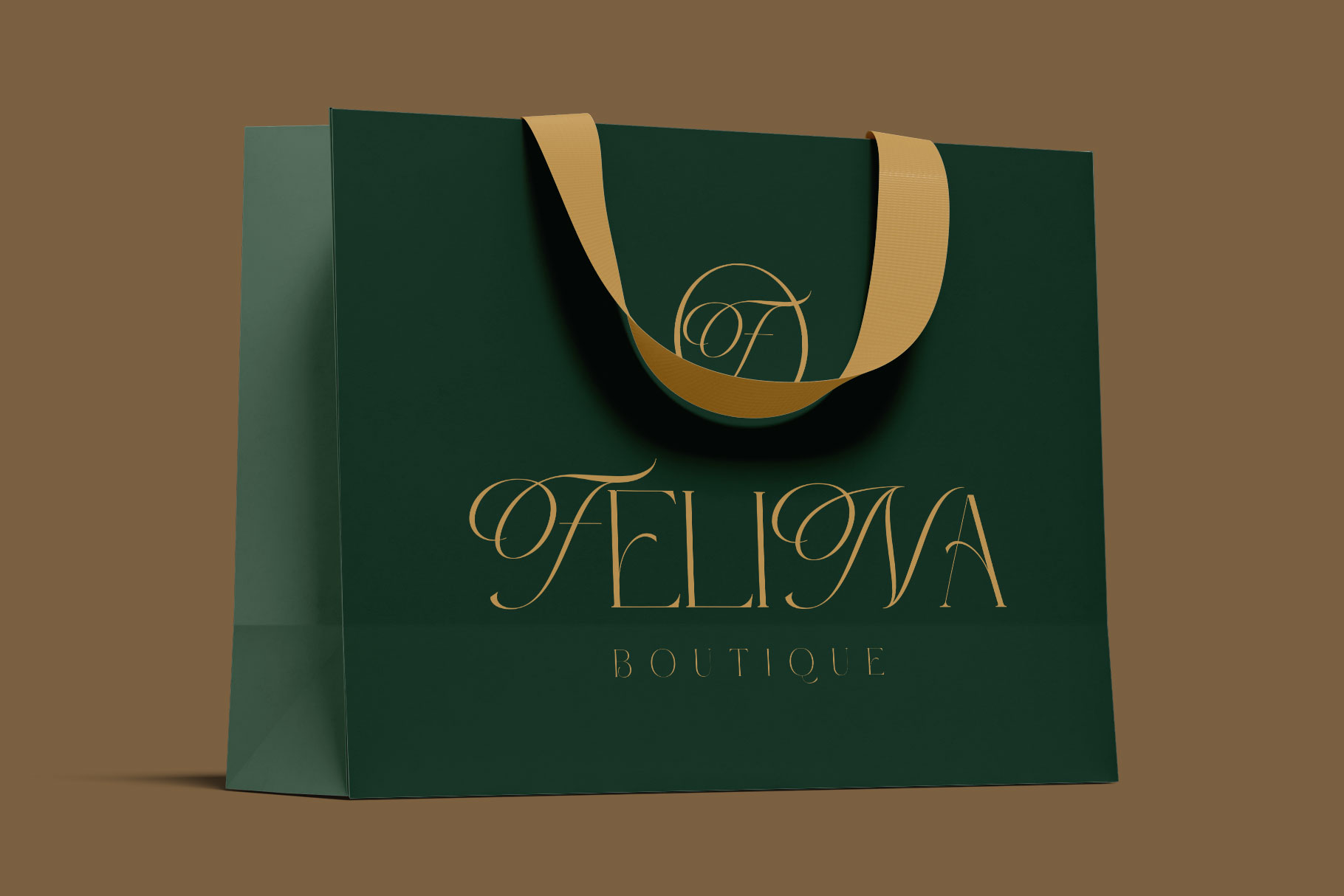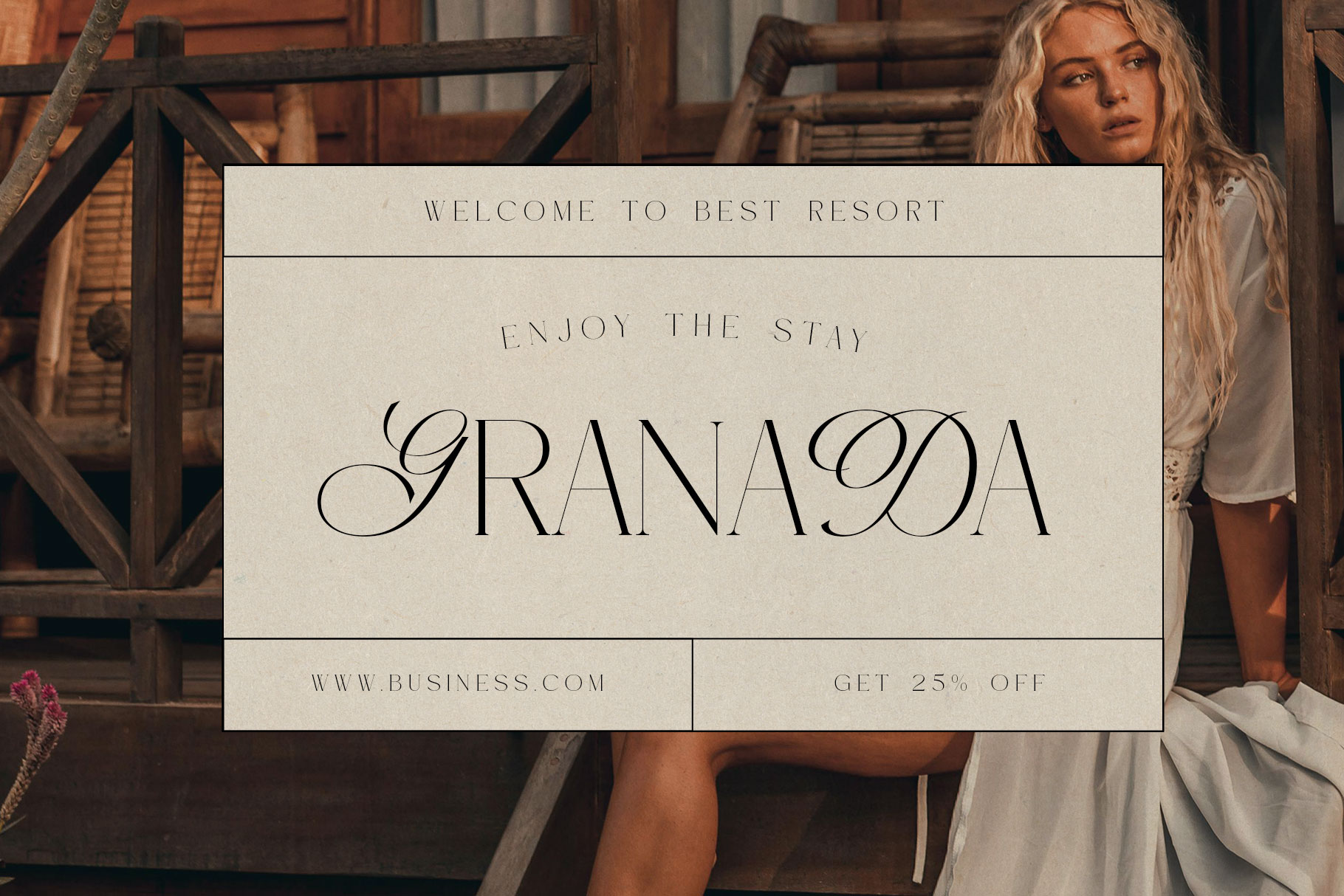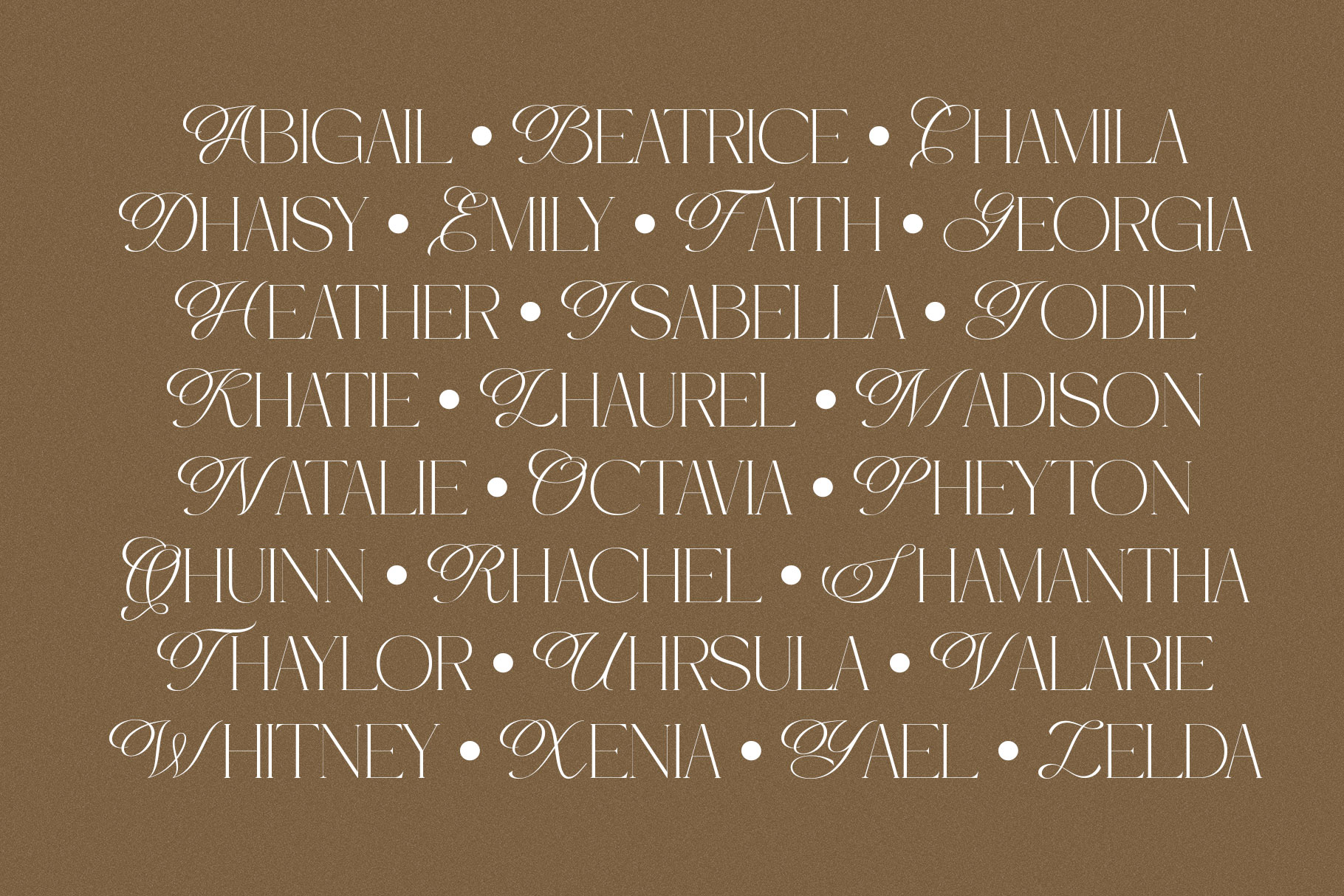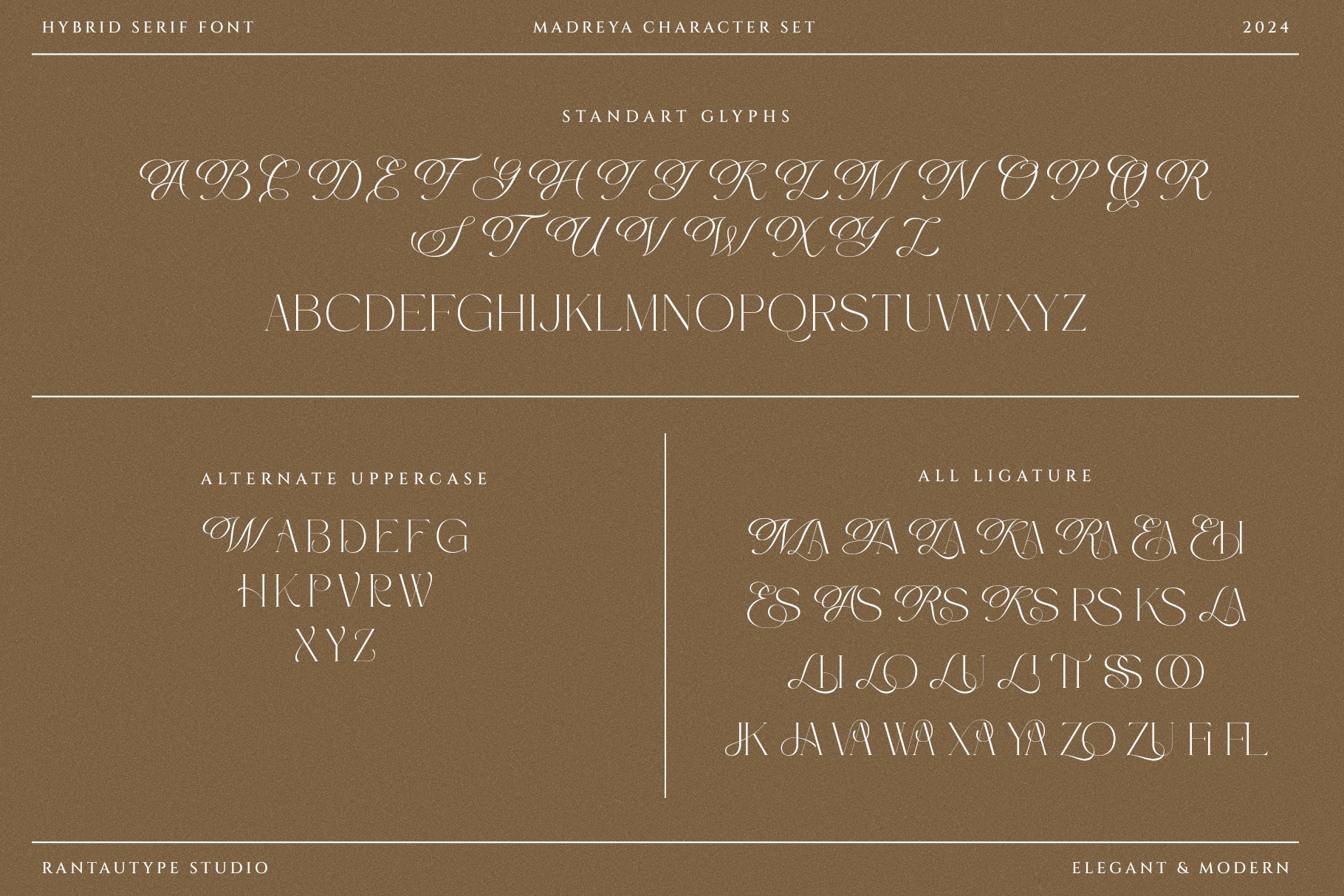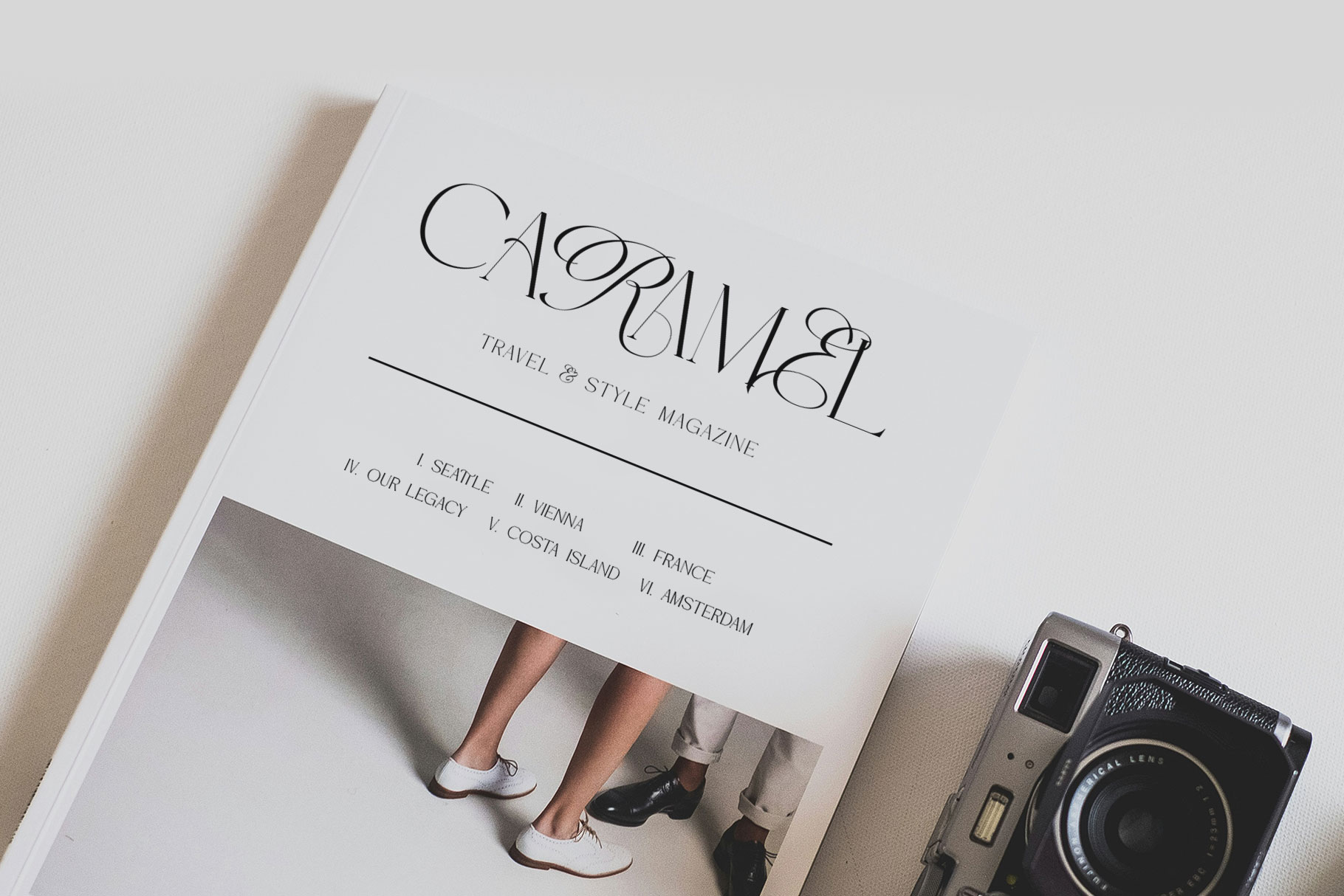
Madreya Combination Serif Font
Madreya is serif combination font with blend script and serif font that embraces luxury. Madreya bring elegant touch and beautiful flowles in uppercase, you can mix and match to create beautiful brand or creative design project.
Madreya is a beautiful choice for any creative endeavor, creating elegant, modern, chic, lifestyle design such as logotype, title, cover, branding, invitations, wedding designs, display and magazine, social media posts, advertisements, printed quotes, product packaging, corporate brand, product designs, labels, photography, watermarks, special events and any other project with elegant touch.